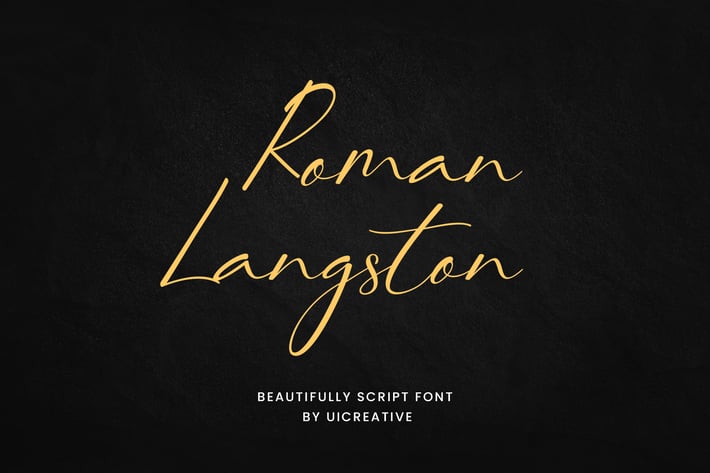
Roman Langston Beautifully Script Font
Introducing our new product the name is Roman Langston Beautifully Script Font. The modern signature font feels beautiful classy, elegant, and modern. This font is perfectly suited for a wide variety of projects, such as signature, stationery, logo, wedding, typography quotes, magazine or book covers, website headers, branding, and more. Also for fashion-related branding or editorial design and displays both masculine and feminine qualities.